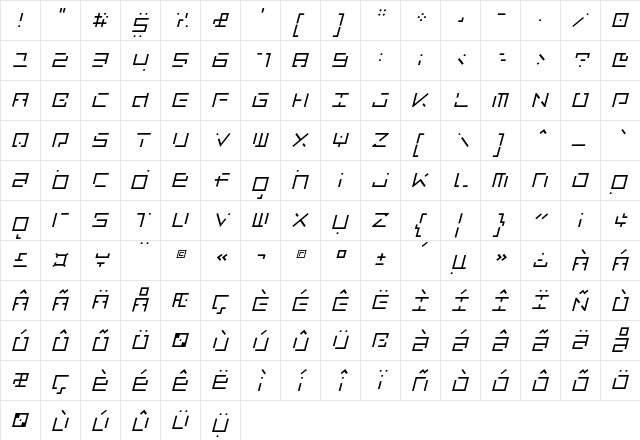
LuggageBroken LightObl Font Preview
LuggageBroken LightObl
Design Context for LuggageBroken Typeface
LuggageBroken is a composed and adaptable typeface that performs quietly and consistently across a wide range of design contexts. The delicate stroke weight brings airiness and refinement to layouts.